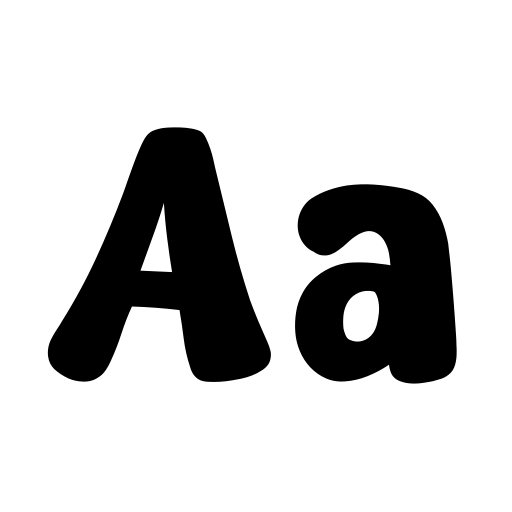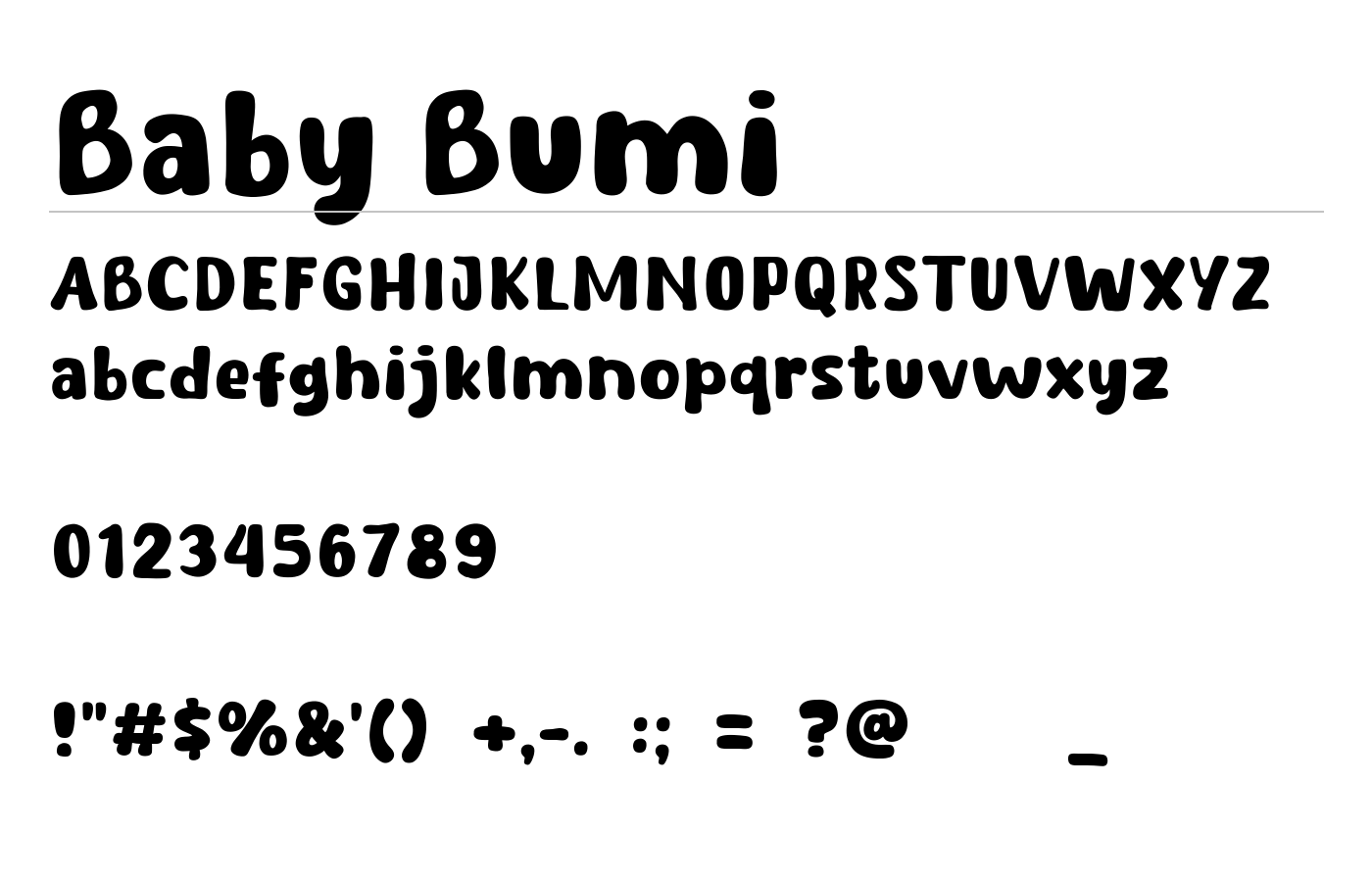
Baby Bumi is a friendly and playful rounded sans serif font with a bold, chunky weight and a casual, hand-drawn feel. Its soft curves and slightly irregular letterforms create an approachable and warm personality, making it ideal for children's books, playful branding, or fun headlines. The font’s simple, clear shapes ensure good readability while conveying a cheerful, informal tone.
Baby Bumi Font
About Baby Bumi Font